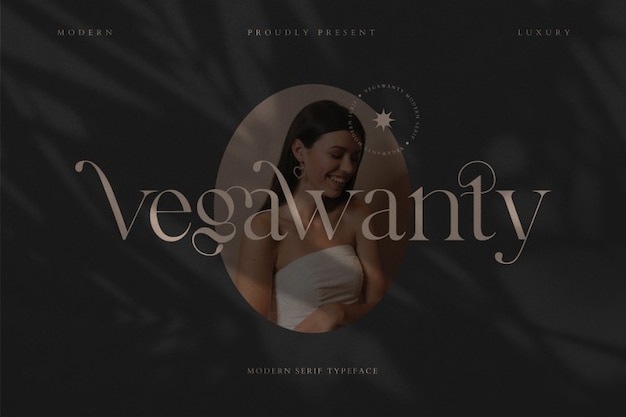
Vegawanty Font
Creatype Studio
A modern epitome of luxury and elegance in typography. Each letter exudes sophistication, crafted with sleek lines and exquisite detail. It's a font that defines modern luxury, offering an elegant appeal that resonates with refined taste. Every character is a testament to contemporary opulence, elevating your text to a realm of refined elegance.